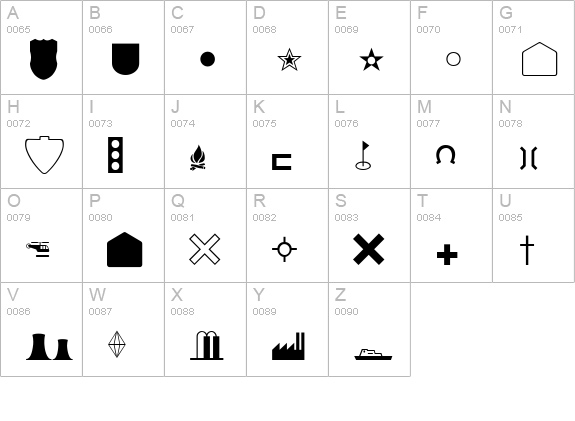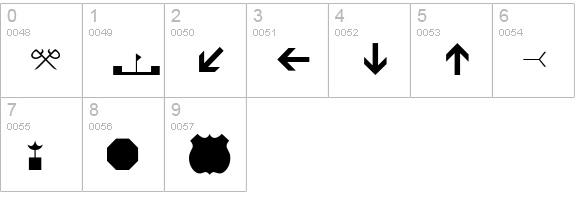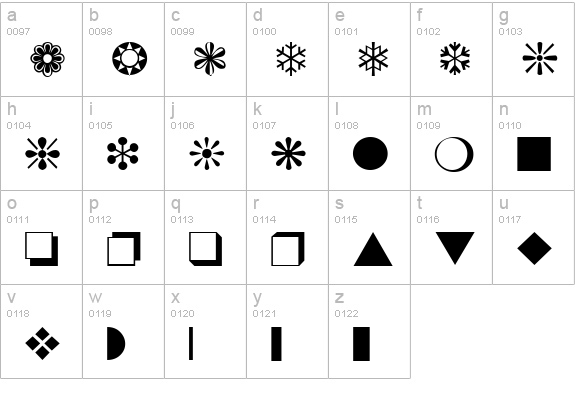
Dingthings Normal Font Details
Dingthings Normal is the standard, neutral variant in the Dingthings typeface family \xE2\x80\x94 well suited to general body text, paragraphs, and standard typographic work.
Dingthings Normal font is a charming and versatile typeface that combines simplicity with a touch of whimsy. Its clean lines and rounded edges make it easy on the eyes, perfect for a wide range of design projects. Whether you're creating invitations, posters, or branding materials, Dingthings Normal font adds a fun and playful element to your work. What's even better is that Dingthings Normal font is available for free download at FontsMarket.com. This means you can easily access this delightful font without any cost, making it a great choice for both personal and commercial use. Don't miss out on the opportunity to enhance your designs with Dingthings Normal font today!